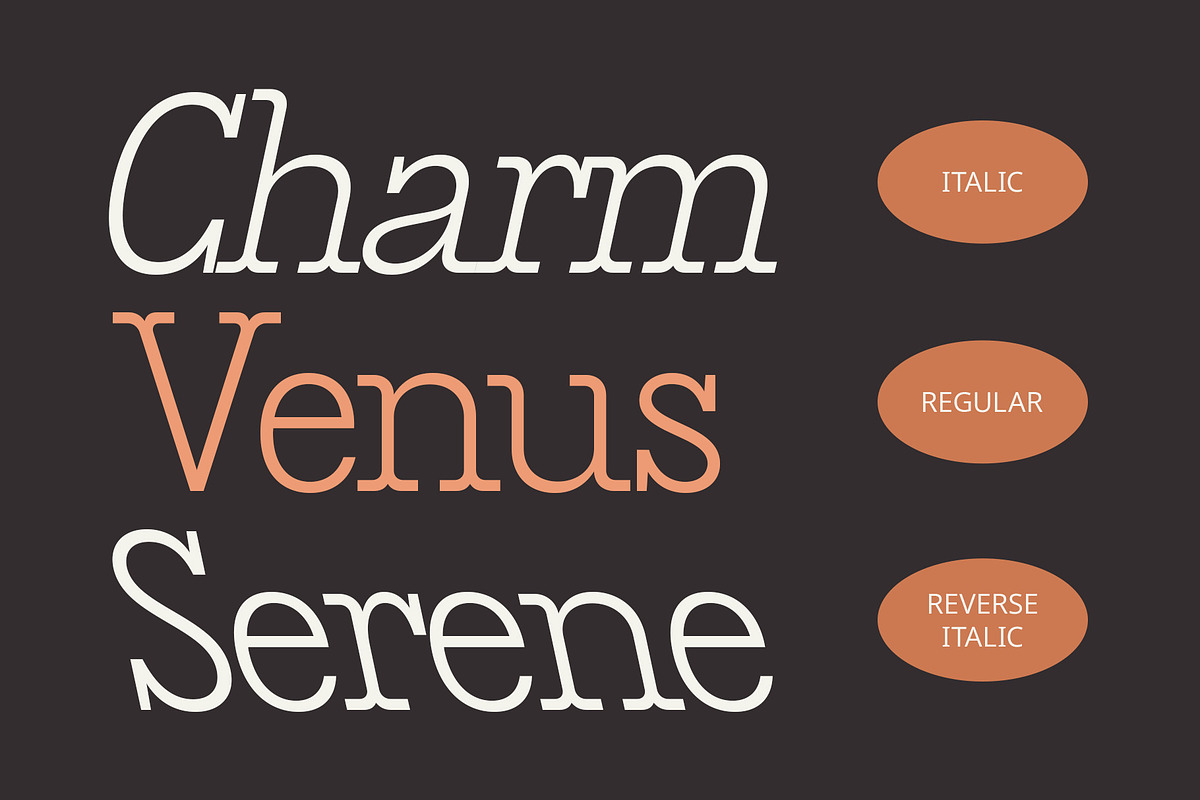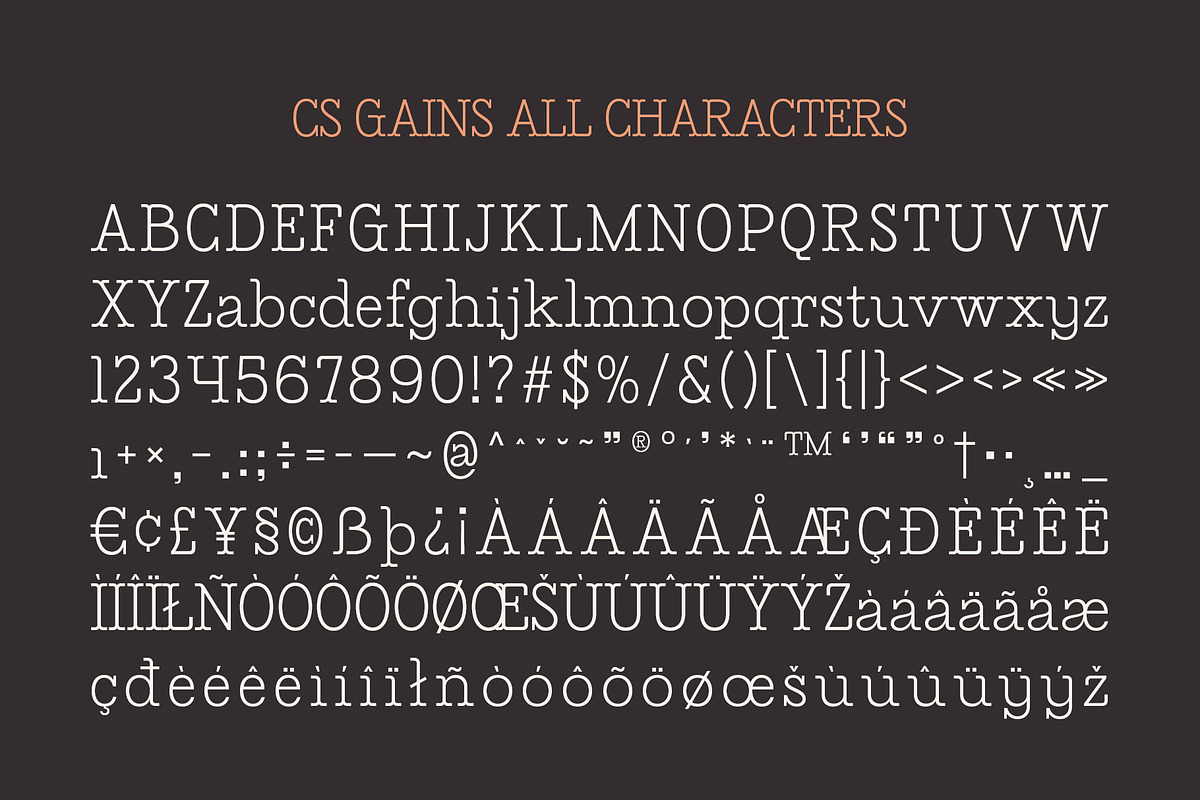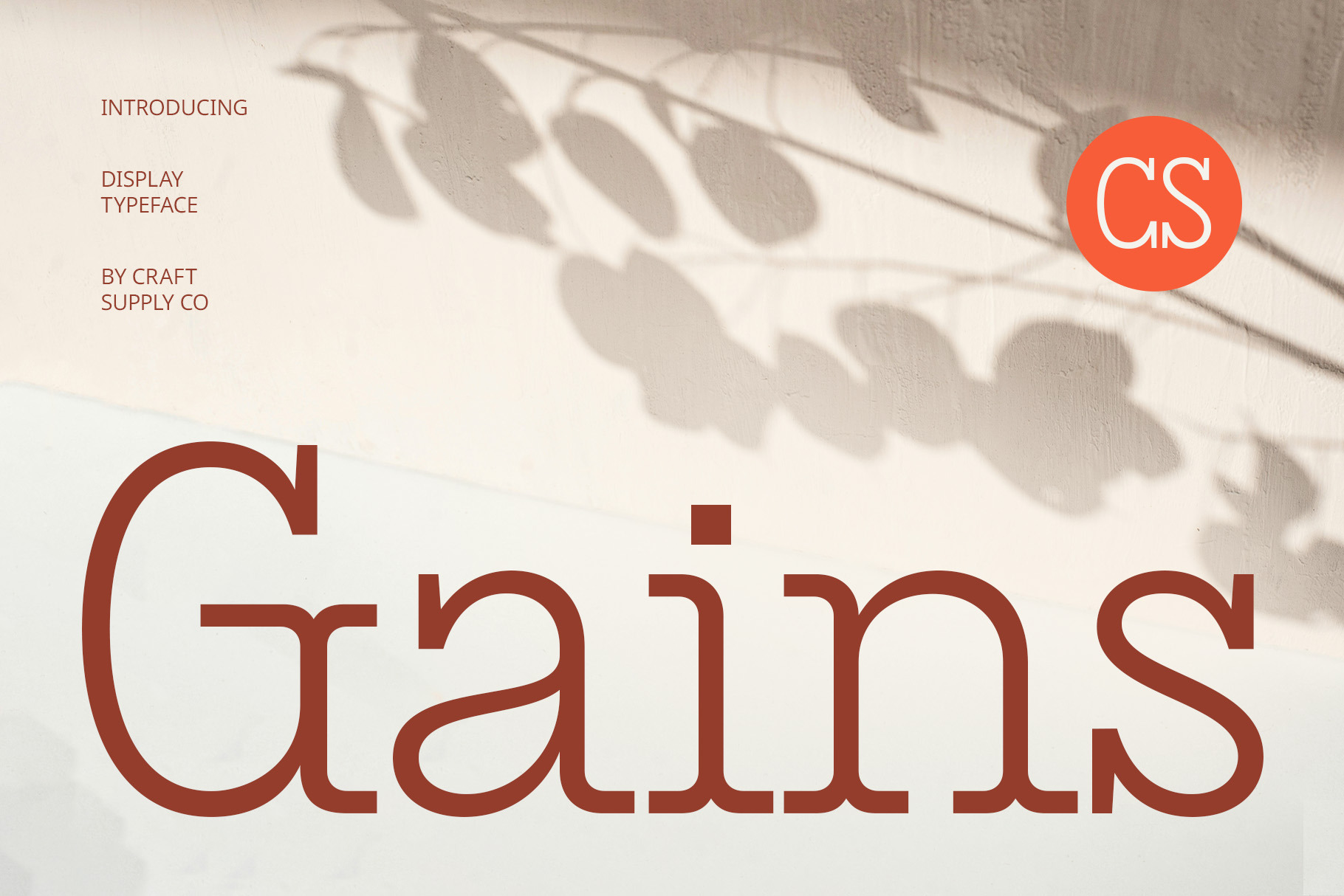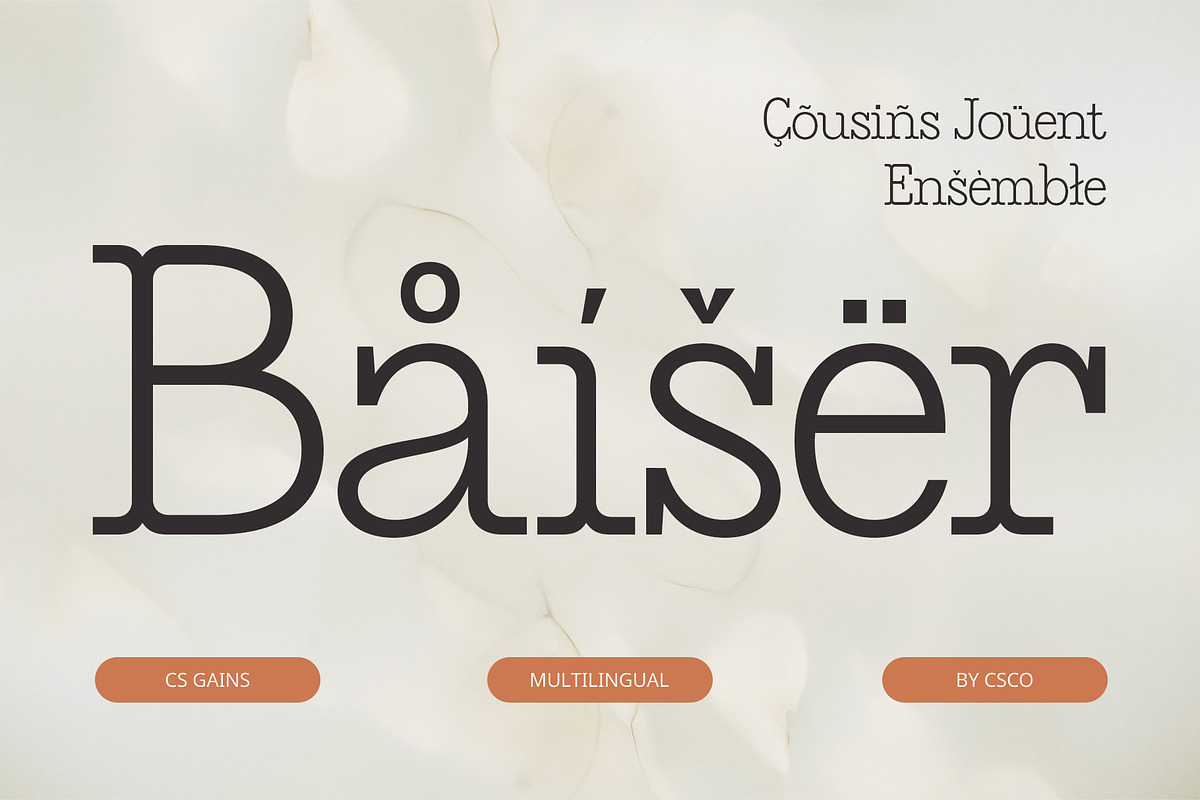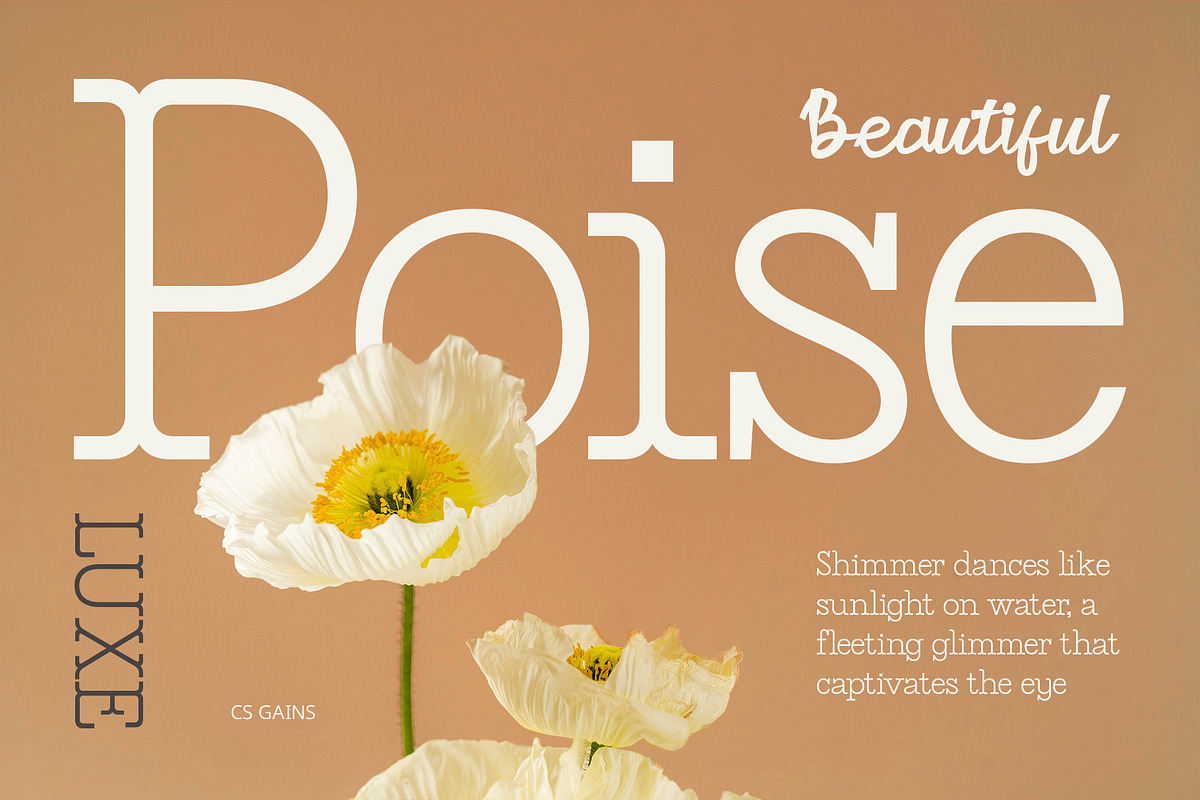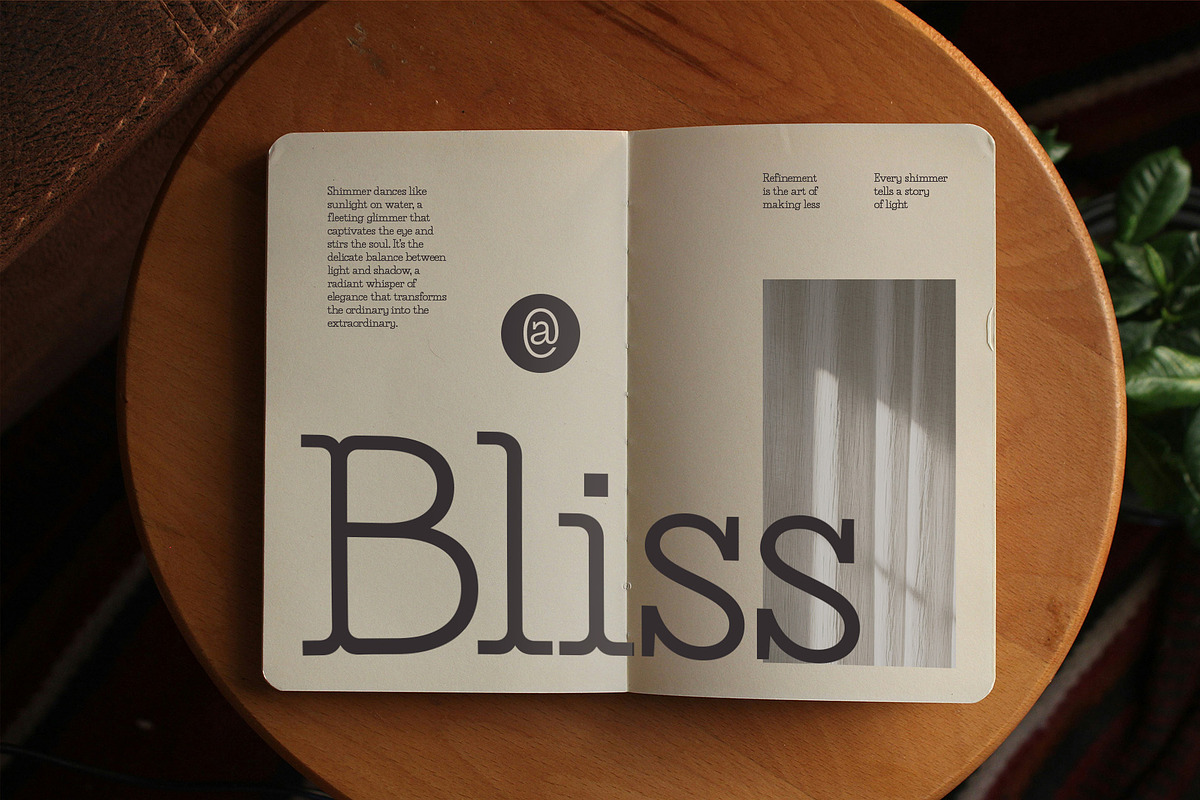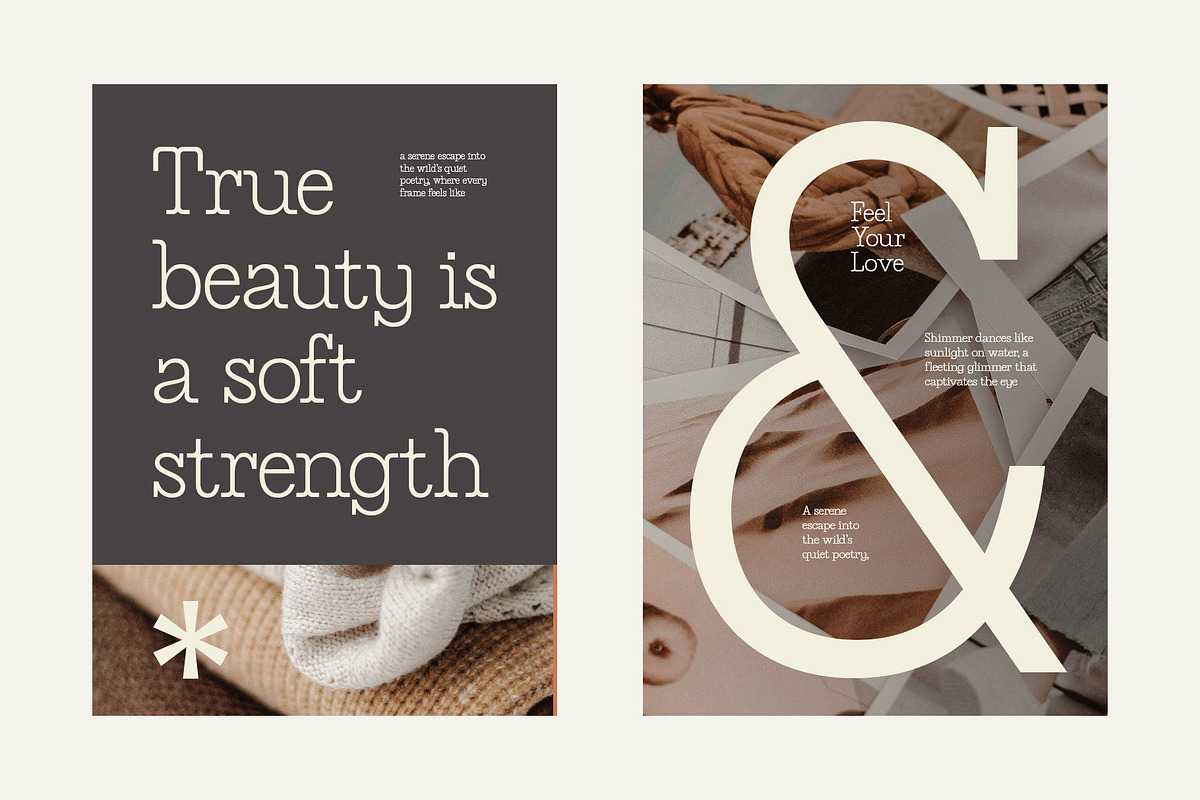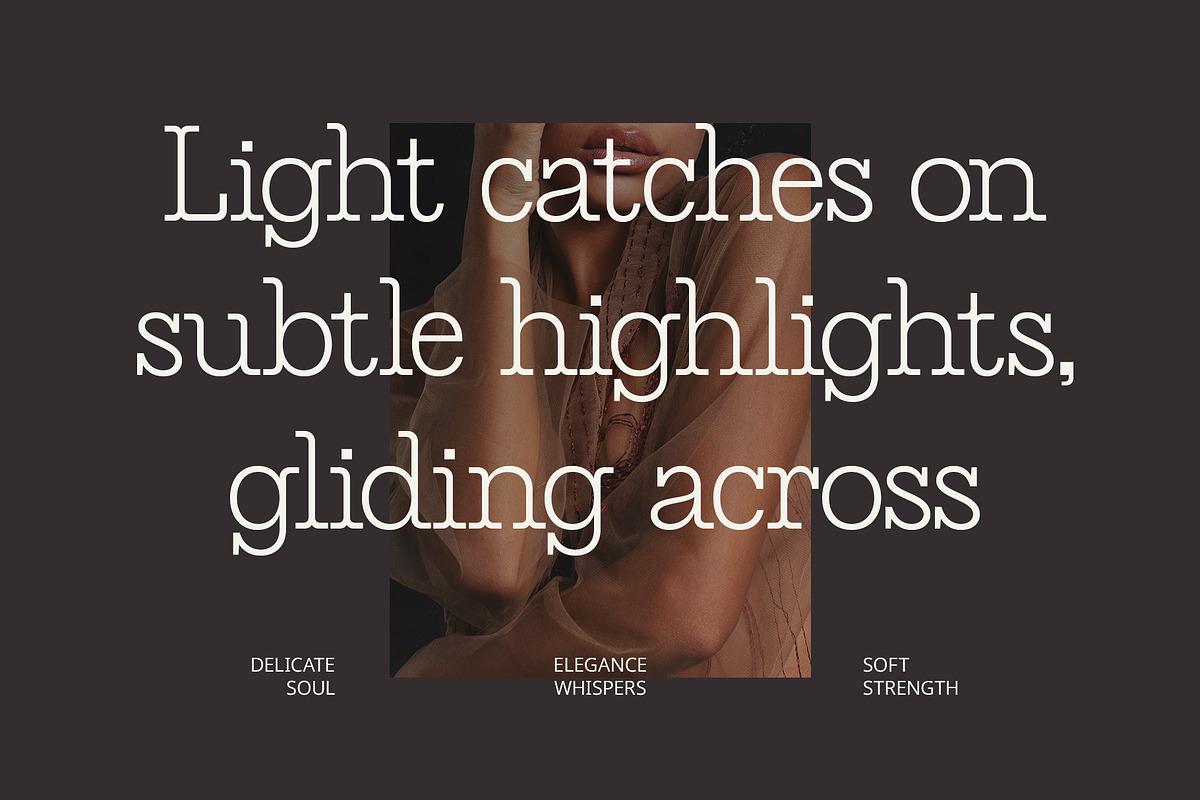
CS Gains – Classic Font
CS Gains – Classic Font: Timeless Elegance Refined for Modern Design
Classic Meets Contemporary CS Gains – Classic Font captures the charm of traditional display serif typography while embracing a clean, contemporary design language. Its elegant structure and graceful details evoke a sense of timeless sophistication, updated for modern creative needs. The result is a font that bridges eras—rooted in heritage, yet strikingly relevant today.
Elegant and Versatile Appeal Carefully designed to exude professionalism and refinement, CS Gains is ideal for a wide range of applications, from editorial layouts to branding and premium packaging. Its stylish serif shapes add a distinguished touch to both digital and print formats, giving your work a high-end visual tone.
Refined for Readability Despite its classic influence, CS Gains remains effortlessly readable thanks to its minimalist approach. The clean lines, generous spacing, and well-balanced proportions create a harmonious flow that enhances user experience across various design contexts—especially where elegance and clarity are key.
Perfect for Premium Design Whether you’re designing a luxury brand identity, curating a refined magazine layout, or crafting elegant stationery, CS Gains offers the ideal blend of heritage and simplicity. Its timeless beauty and thoughtful execution make it a go-to choice for designers looking to communicate prestige, creativity, and modern sophistication.